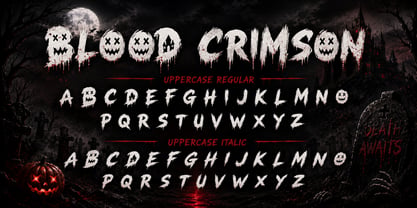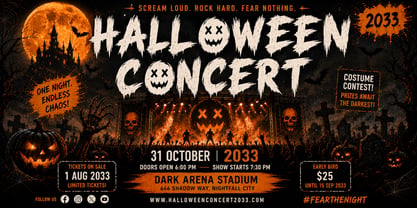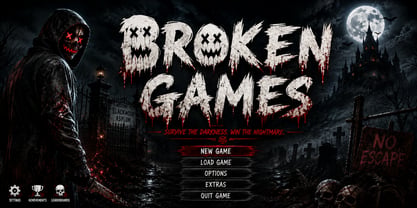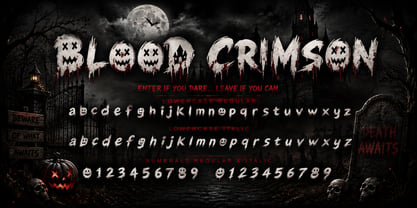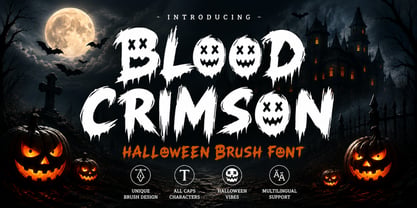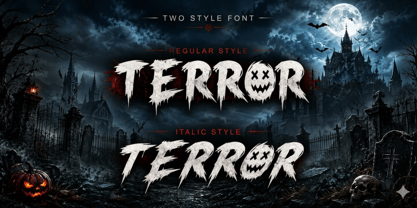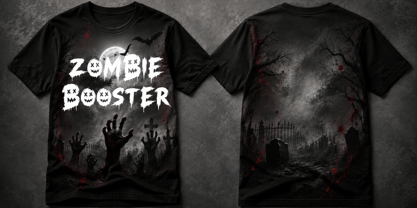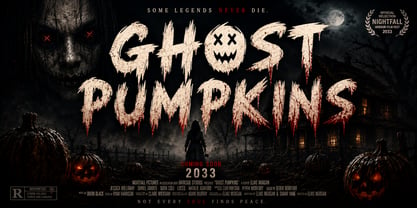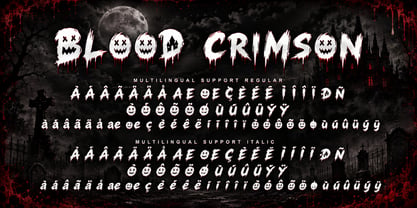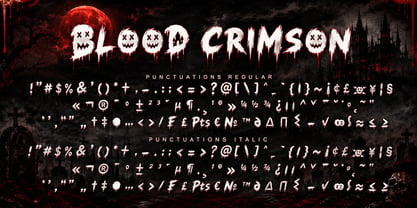
Blood Crimson
by Yoga Letter
The Blood Crimson Font Family was designed by Isroni Yoga Prasetya and published by Yoga Letter. Blood Crimson contains 2 styles and family package options. More about this family
Blood Crimson is a striking, brush-style font that embodies a Halloween theme, complete with dripping effects and eerie, monster-like details. This font is ideal for horror movie titles, spooky posters, game assets, branding, t-shirt designs, and Halloween party graphics. Its hand-painted brush style provides a terrifying yet captivating appearance, making it a standout choice for any creative project. Additionally, Blood Crimson offers multilingual support, ensuring versatility across various design needs.
Designers: Isroni Yoga Prasetya
Foundry: Yoga Letter